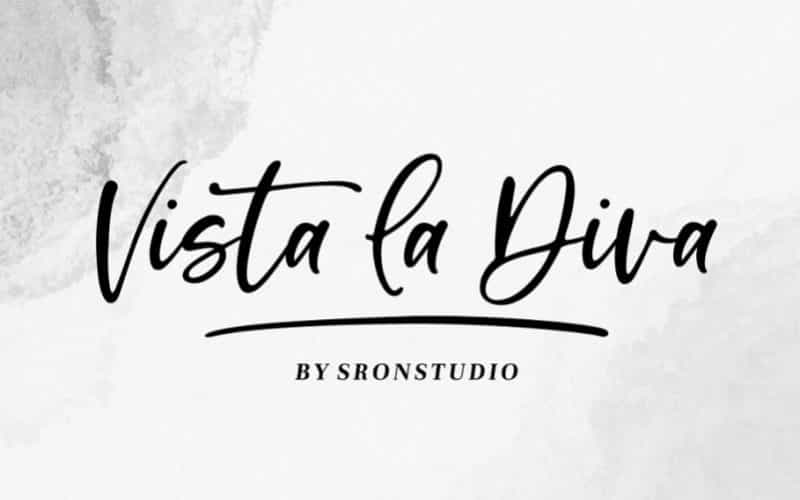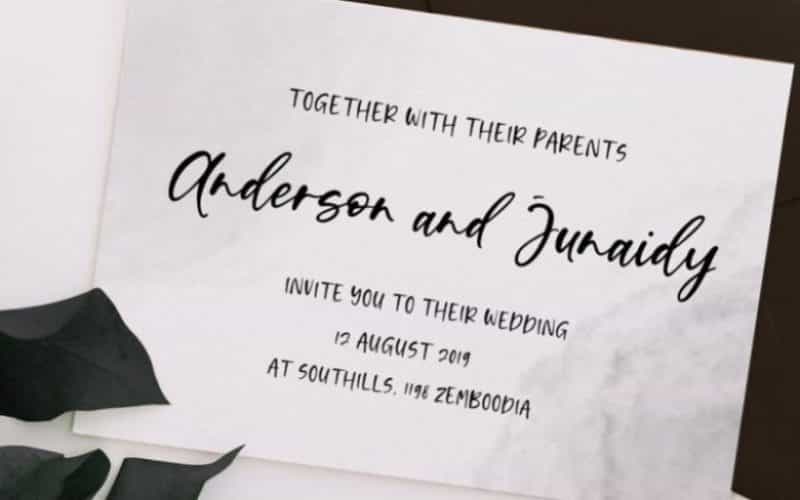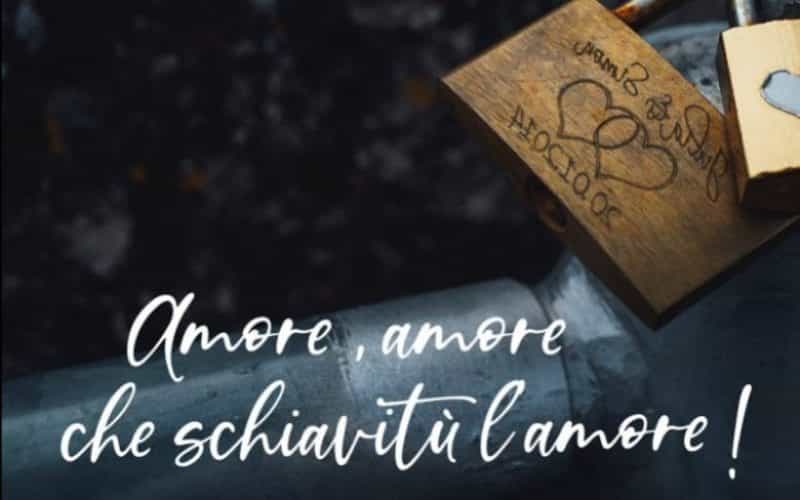
Discover Vista La Diva Font, part of the Brush Calligraphy collection—a versatile and unique font perfect for adding a personal touch to your projects. Download it for free and enjoy crafting designs with style, from invitations to social media posts. This font is available exclusively for personal use, giving you the freedom to create without limits. Unlock your creativity with Vista La Diva Font today!
Vista La Diva is a beautiful script font this font is perfect to use for logo, invitation, stationery, wedding design, social media post or any advertisements product packaging, product design, label, photography watermark, special event and etc.